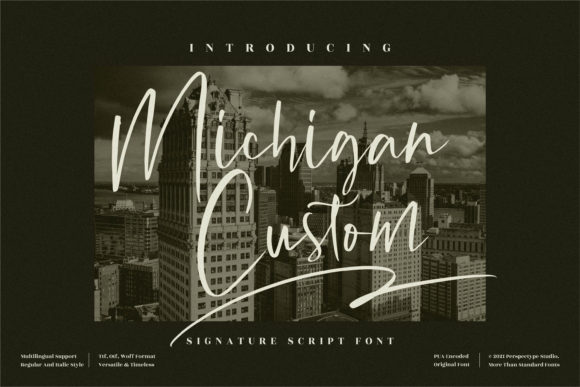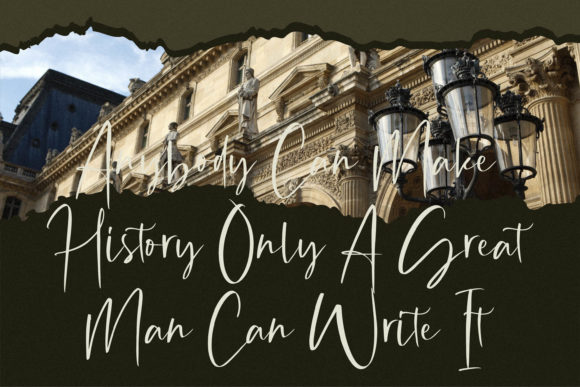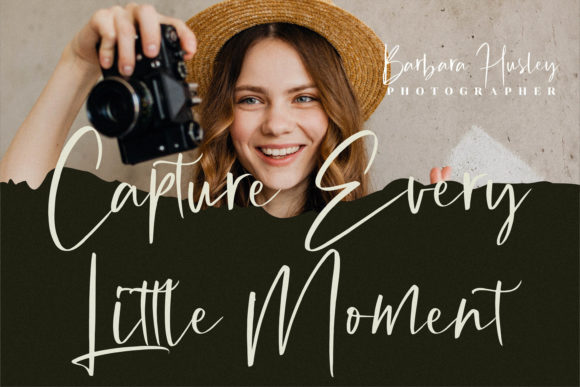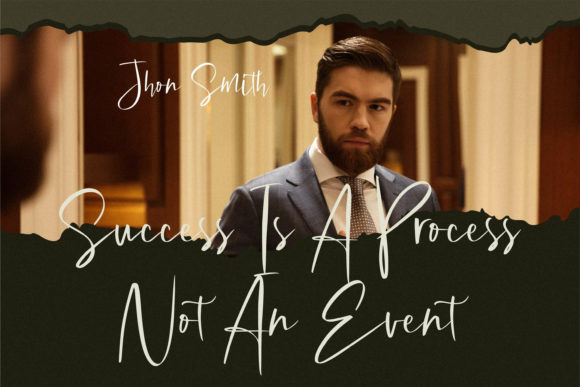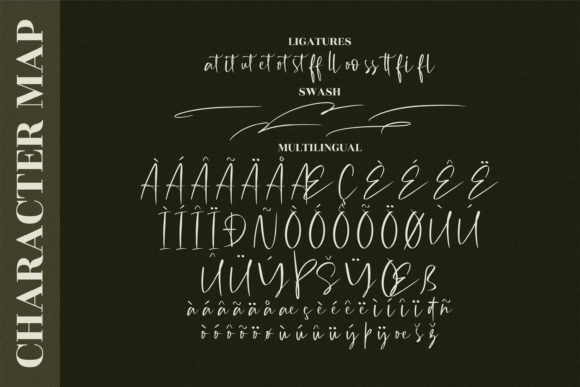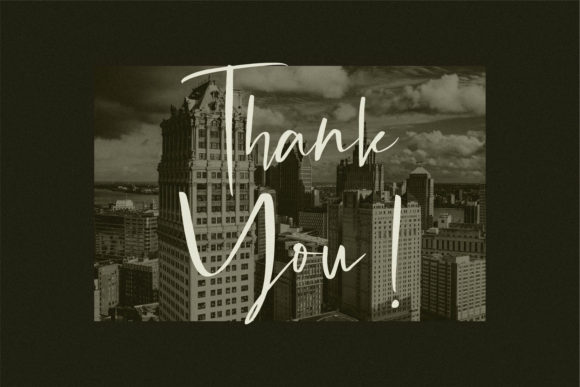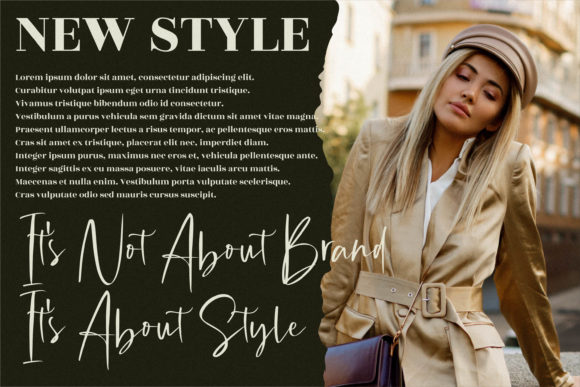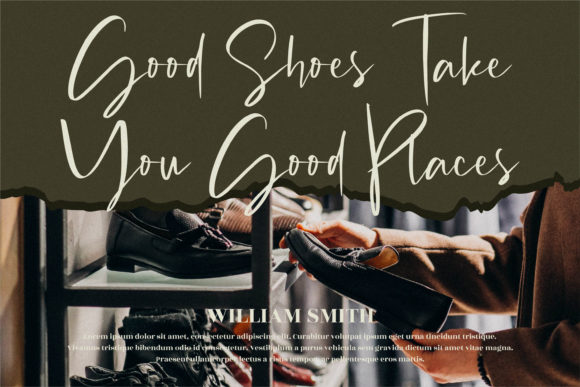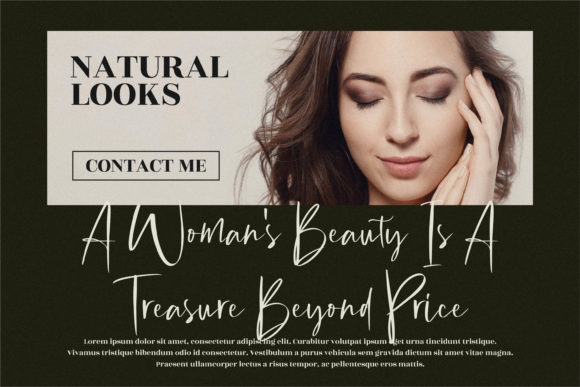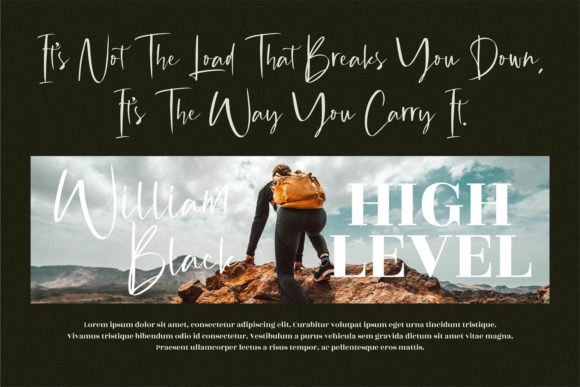
Michigan Custom Font
About Michigan Custom Font
Michigan Custom is a thin lettered and stylish script font. It looks stunning on wedding invitations, thank you cards, quotes, greeting cards, logos, business cards and every other design which needs a handwritten touch.